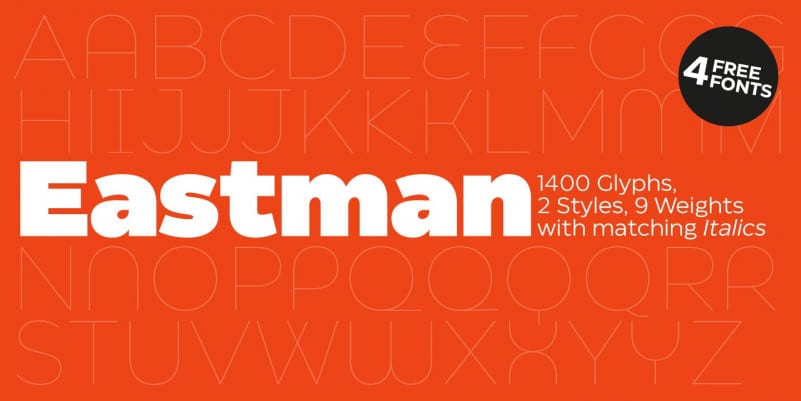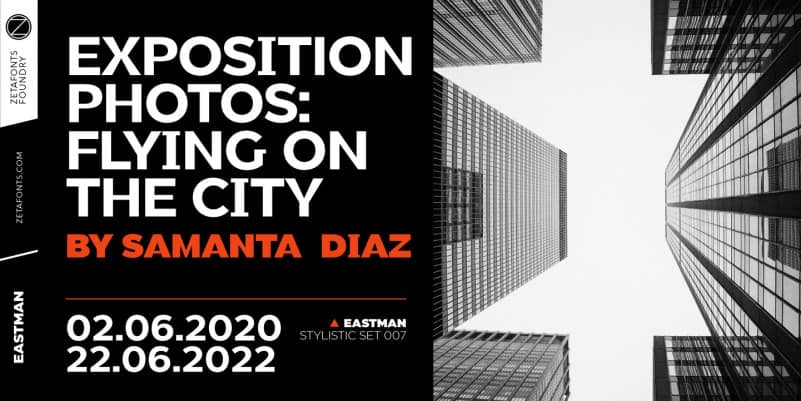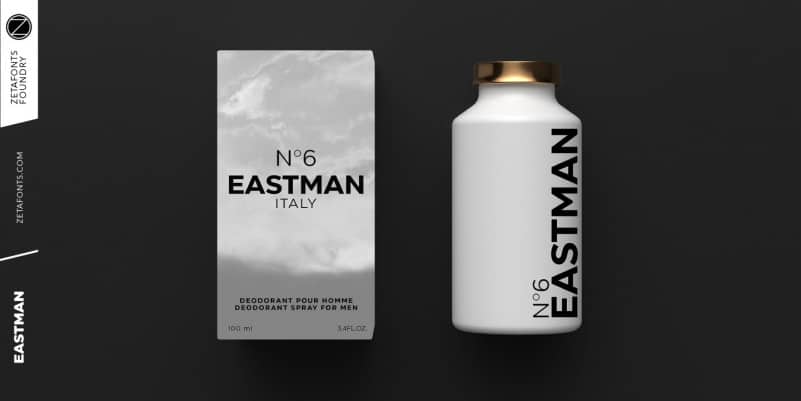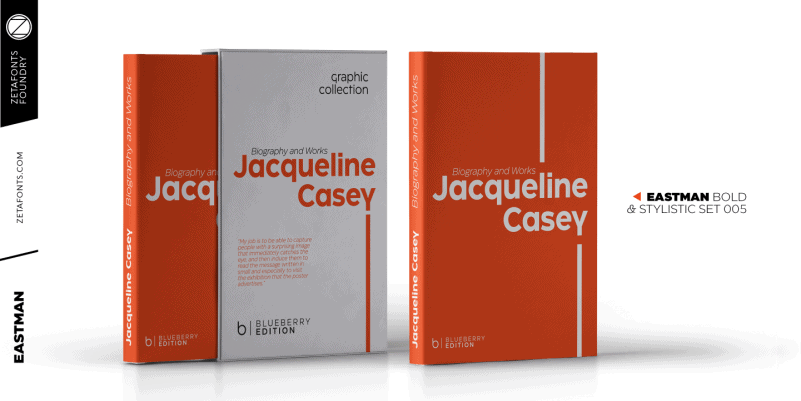
Eastman Alternate Sans Serif Font
Eastman Alternate Sans Serif Font is a gorgeously unique sans serif font that combines perfect readability with a clean and modernist lettering design. The font is also available in a regular, italic, bold italic and bold version. This typeface is suitable for headlines of all sizes, editorial design, branding, packaging, web and broadcast use, etc.